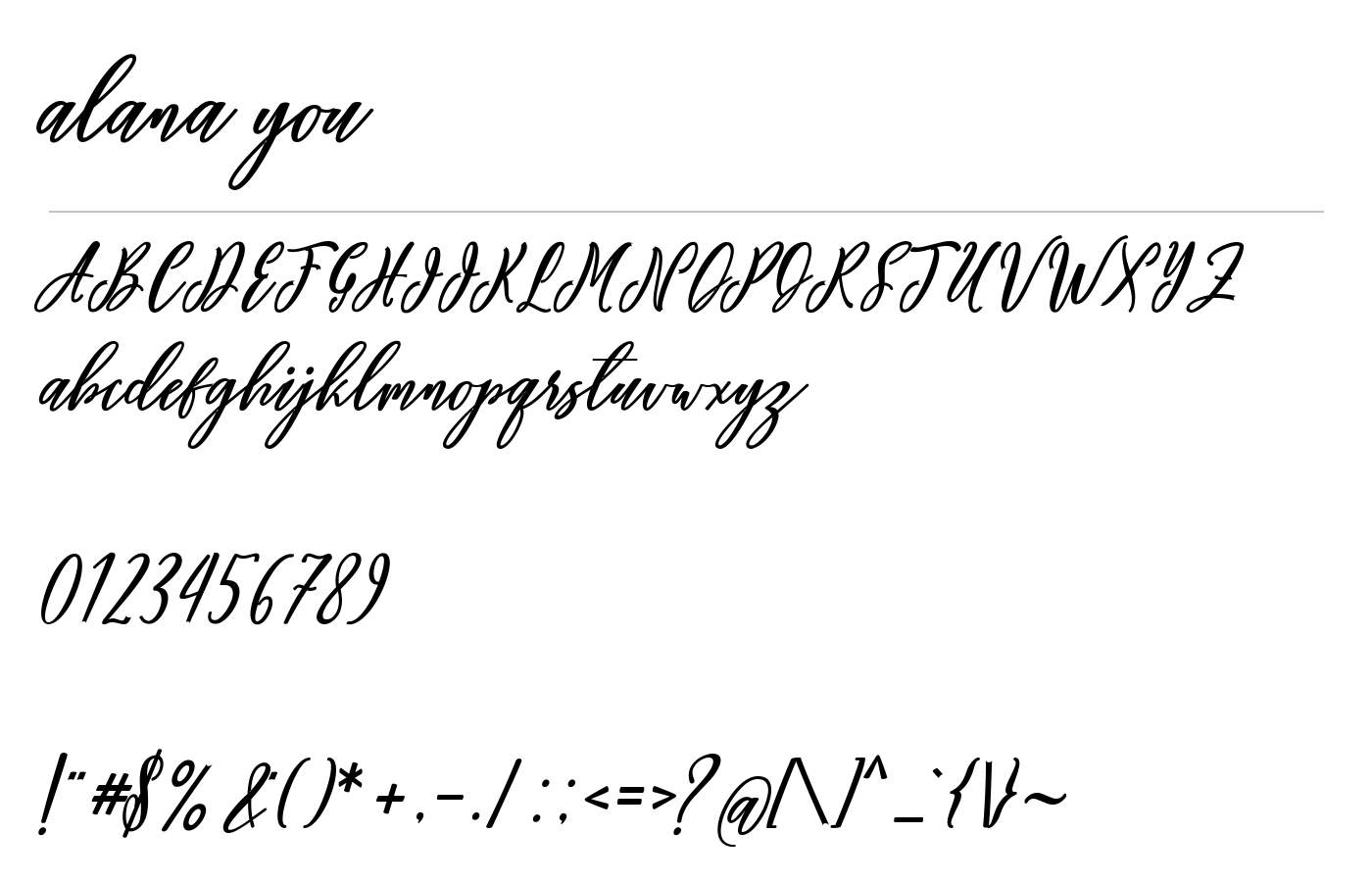
Alana You is an elegant script font featuring fluid, connected letterforms with a natural, handwritten feel. Its slender strokes and graceful curves lend sophistication and warmth, making it ideal for invitations, branding, and creative projects that benefit from a personal, stylish touch. This font shines in designs seeking a refined yet approachable aesthetic.
alana you Font
About alana you Font
| Font family | alana you Font |